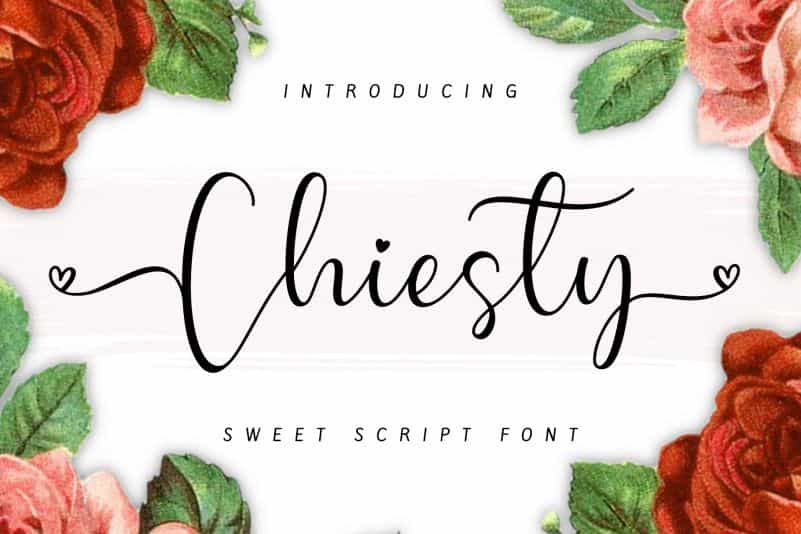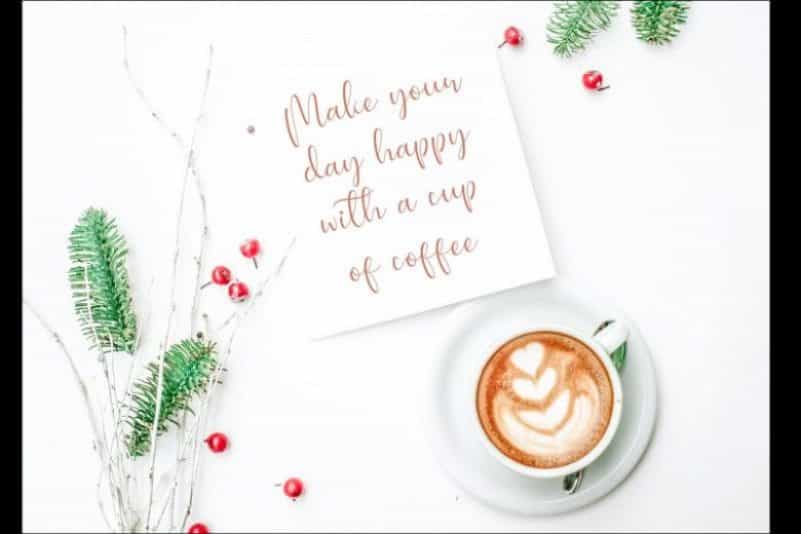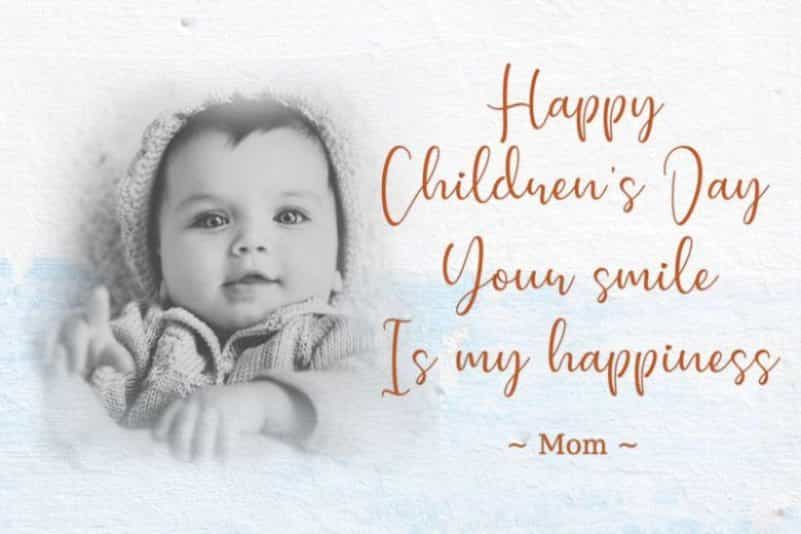
Chiesty is a Modern Calligraphy font. This font was made by handwriting and it has a modern and unique calligraphy, the writing style is very natural.